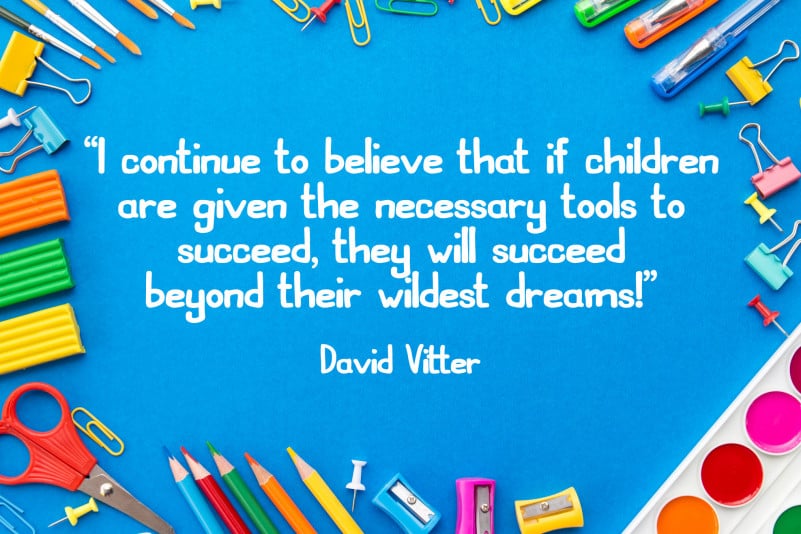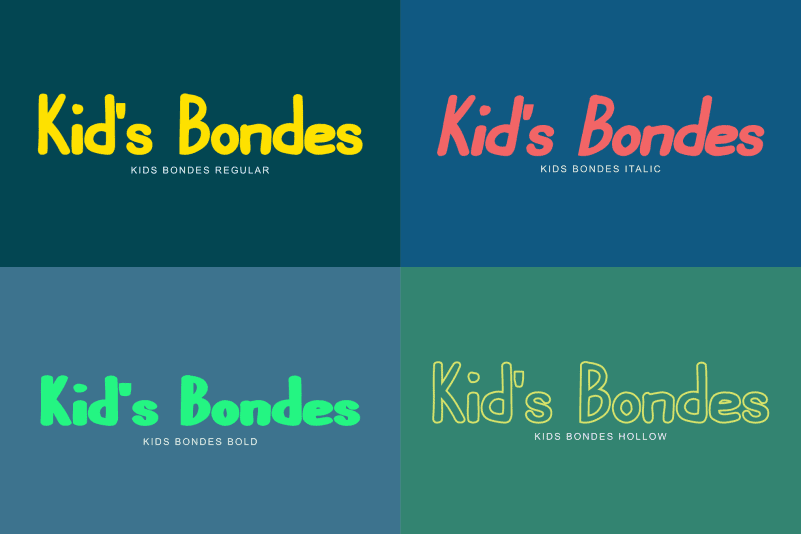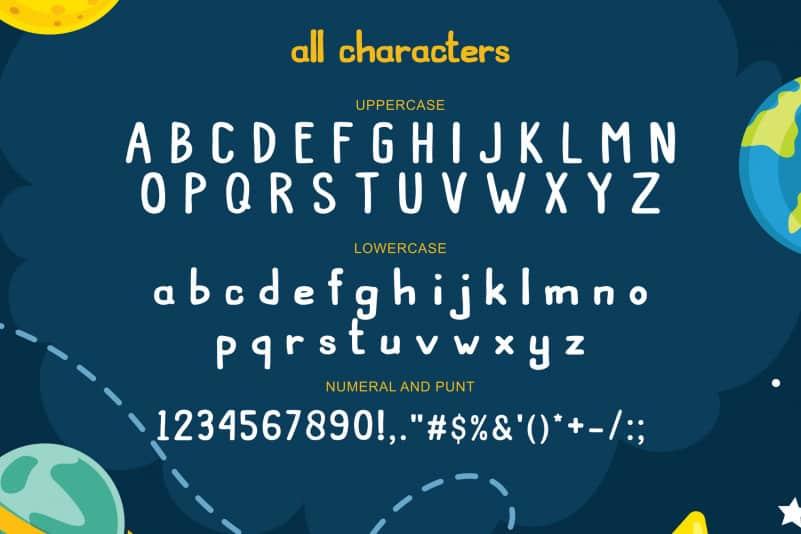
Kids Bondes Font is a natural handwritten font. It’s perfect for product packaging, branding projects, magazines, social media posts and more. Get creative with childlike games, and use them to brighten up kids and school projects!